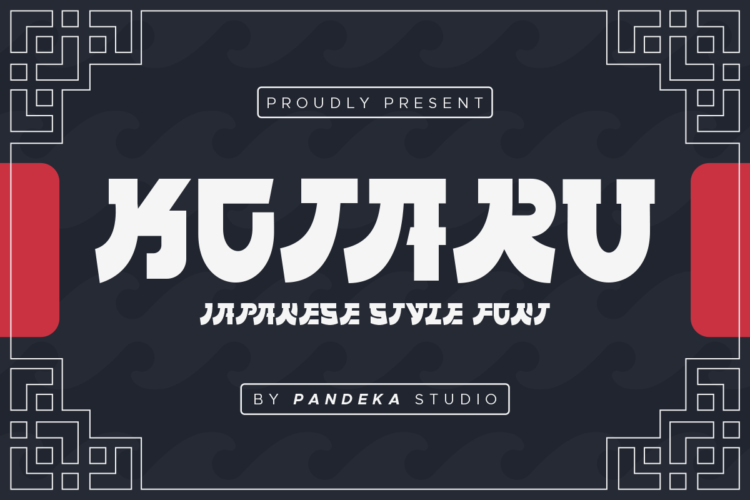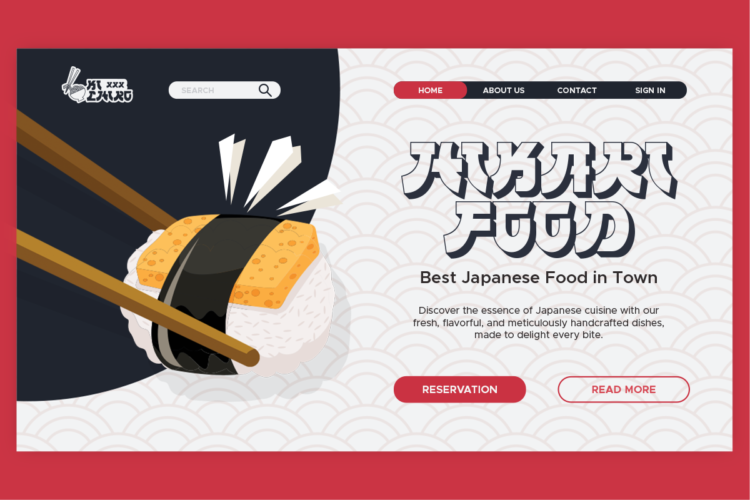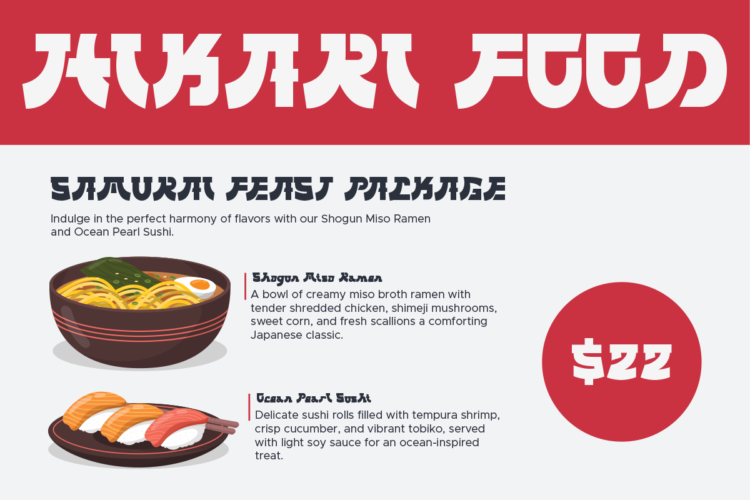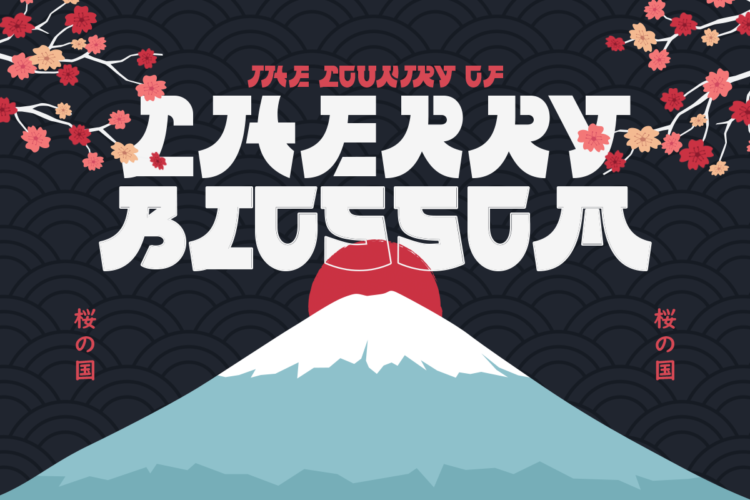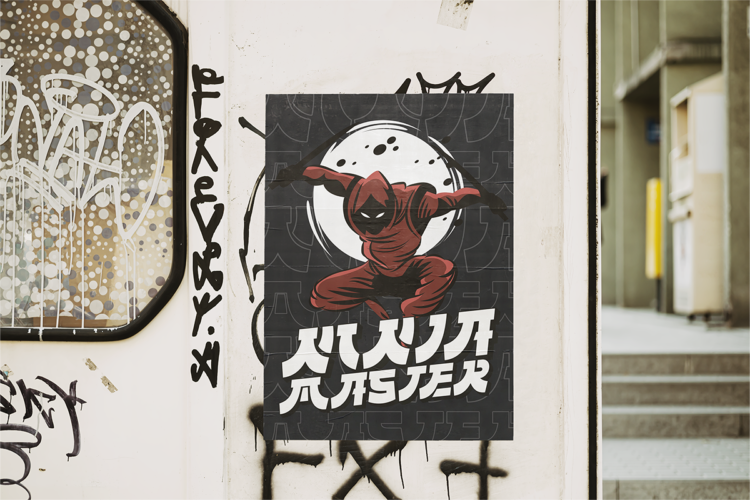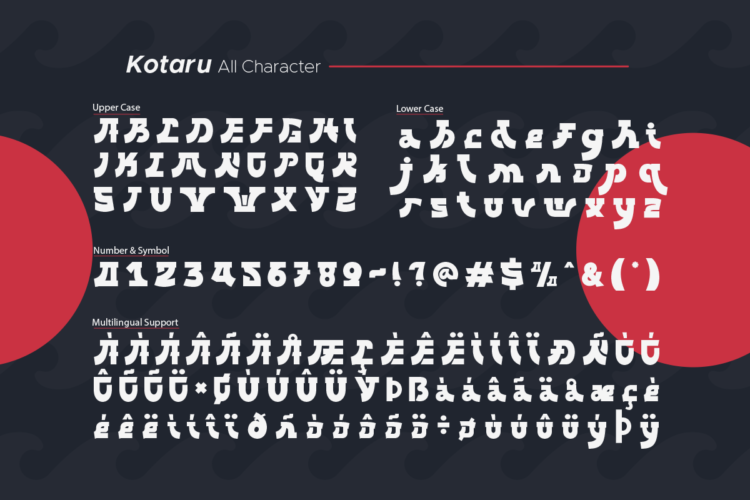
Kotaru Regular
Kotaru Extrude
Kotaru Outline
Introducing Kotaru, a modern Japanese-inspired font that combines sleek, contemporary design with a traditional Japanese aesthetic. Designed to be versatile and easy to read, Kotaru features 3 unique styles – Regular, Extrude, and Outline, making it perfect for various creative projects like logos, branding, invitations, posters, headlines, social media, and more.
• 3 Styles: Regular, Extrude, and Outline
Kotaru – 3 Modern Japanese Font